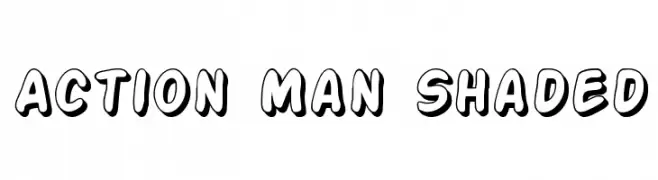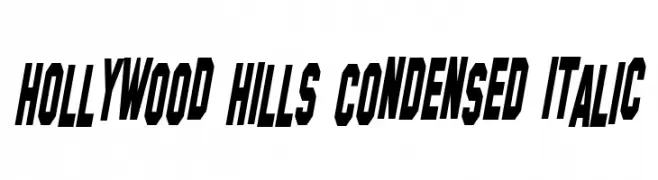
A bold, shaded font with a playful, three-dimensional effect.
A bold, extended font with a strong, geometric design for impactful text.
A bold, italic font with a futuristic and dynamic style.
A bold, italicized, and extended font with a playful and dynamic style.
A bold, shaded font with a playful, comic book style.
A bold, italicized font with a playful and dynamic style.
A bold, playful handwritten font with rounded, energetic letterforms.
A bold, italicized handwritten font with a dynamic and energetic style.